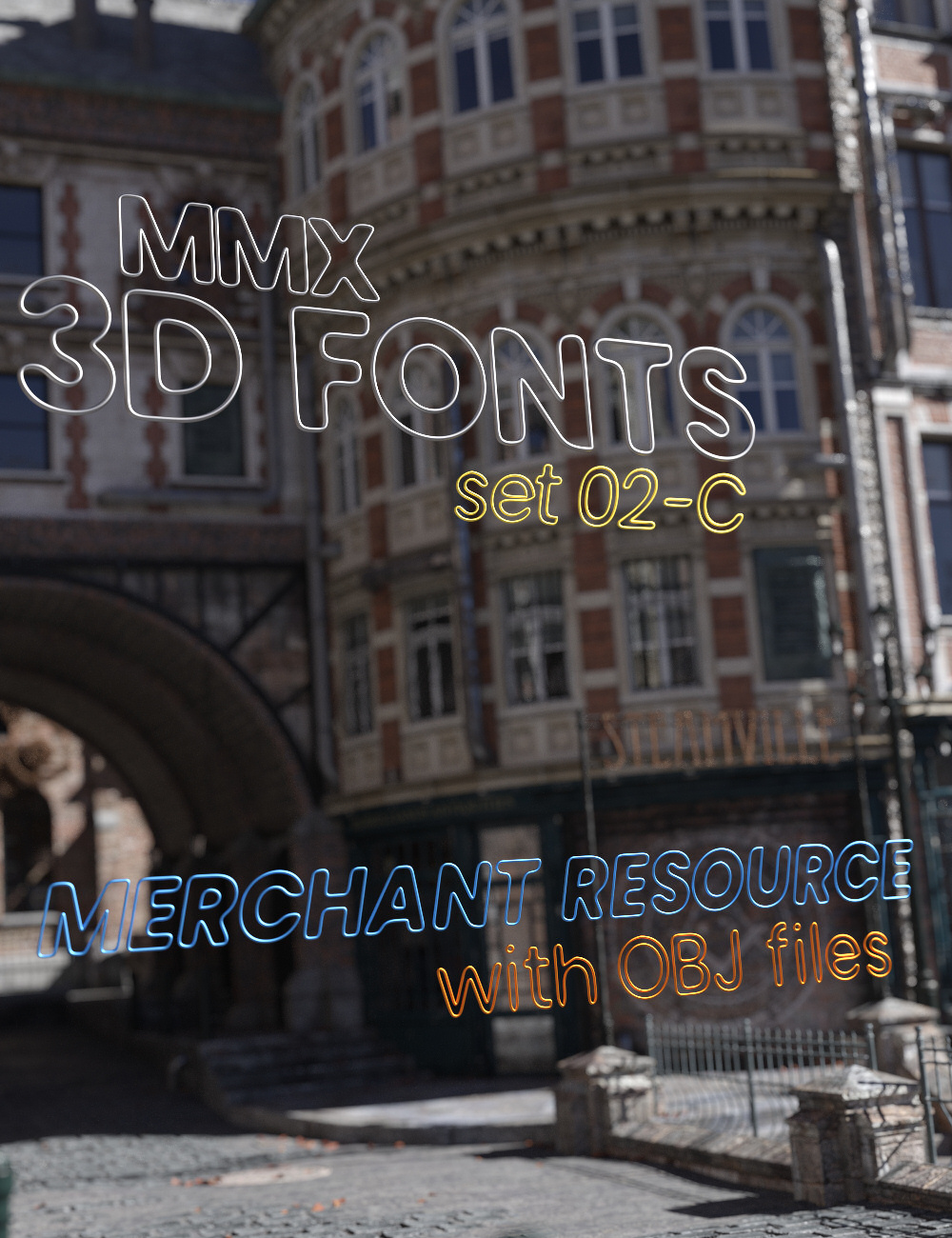
MMX 3D Fonts 02-C Merchant Resource
This is a set of 400 font props. The set is a round tube outline. It comes in 4 different font types, standard, bold, italic and bold italic. For each of those there are 26 upper case letters, 26 lower case letters, 10 numbers and 38 special characters. All props have only 1 surface and the set includes 30 shader presets that can be applied to the props within Daz Studio.